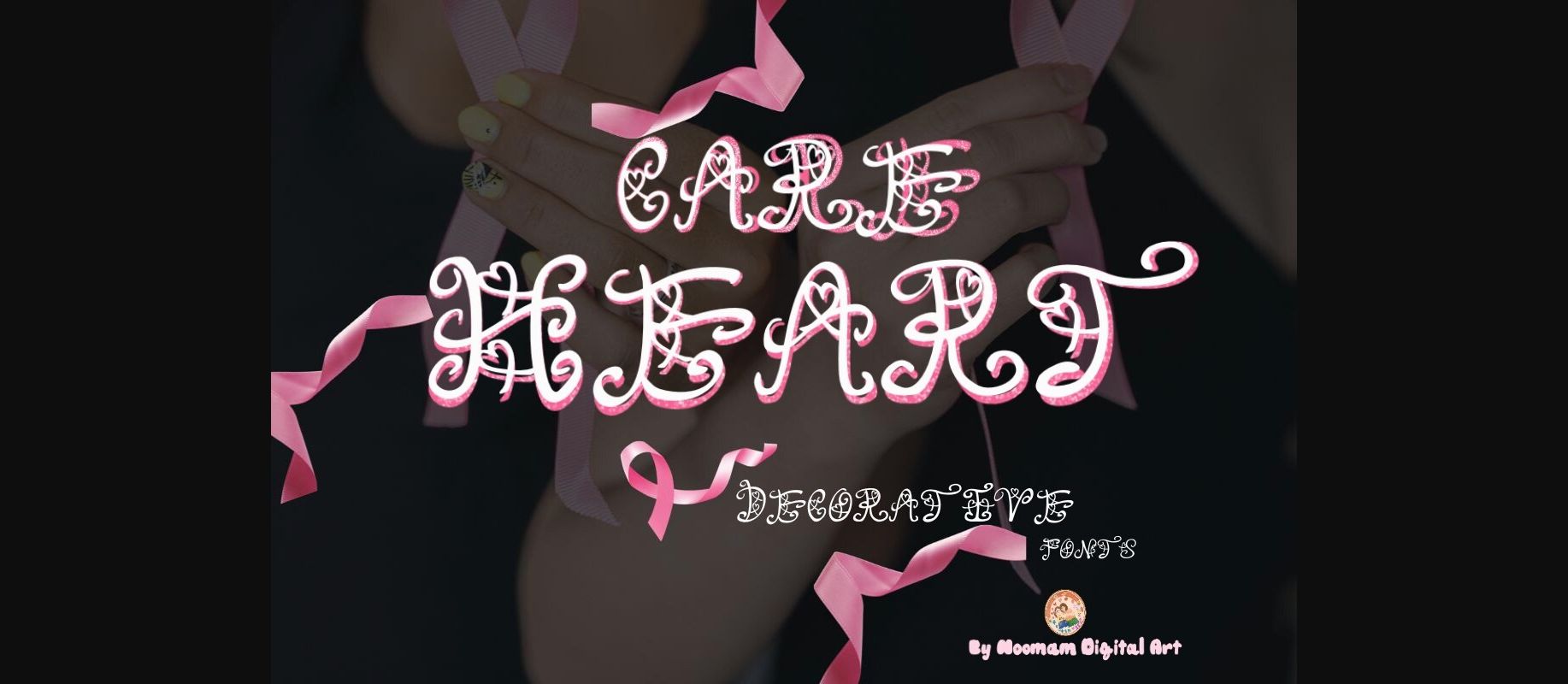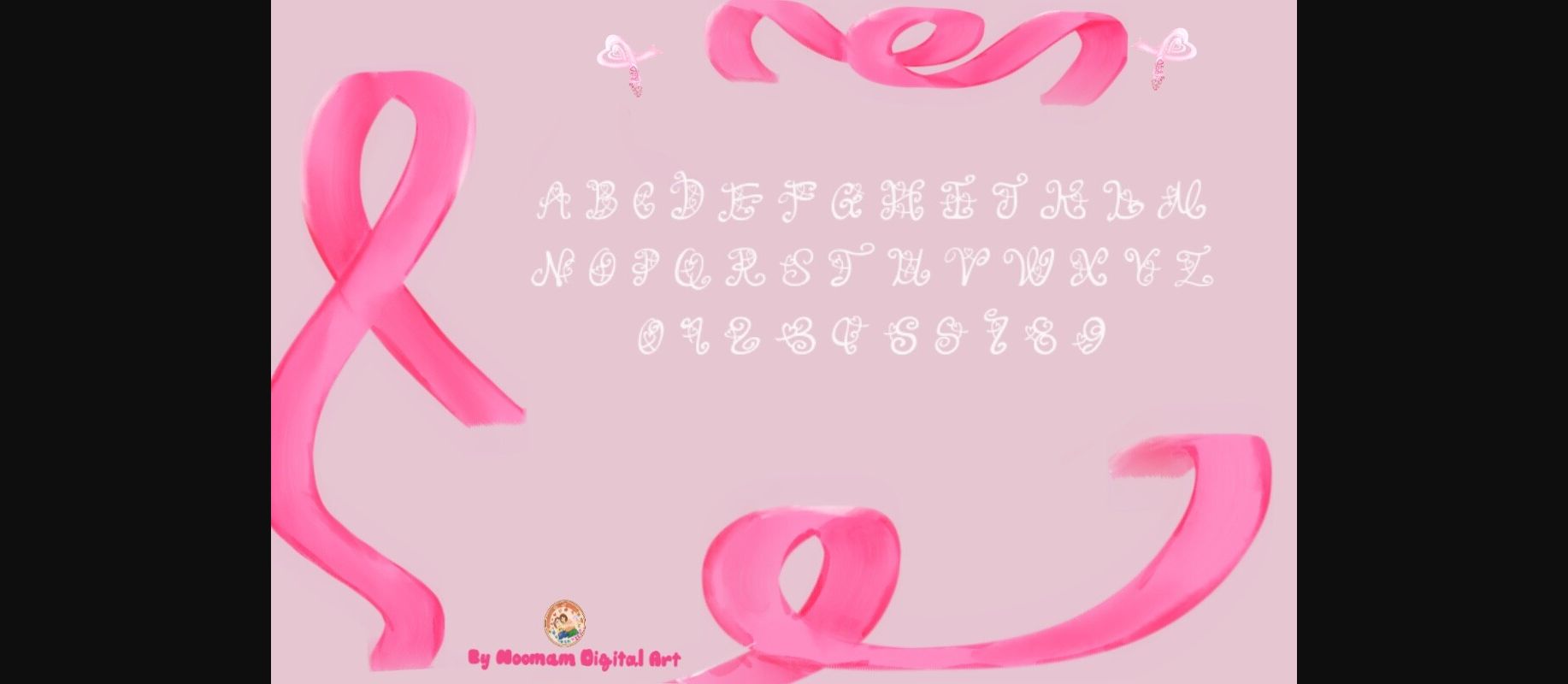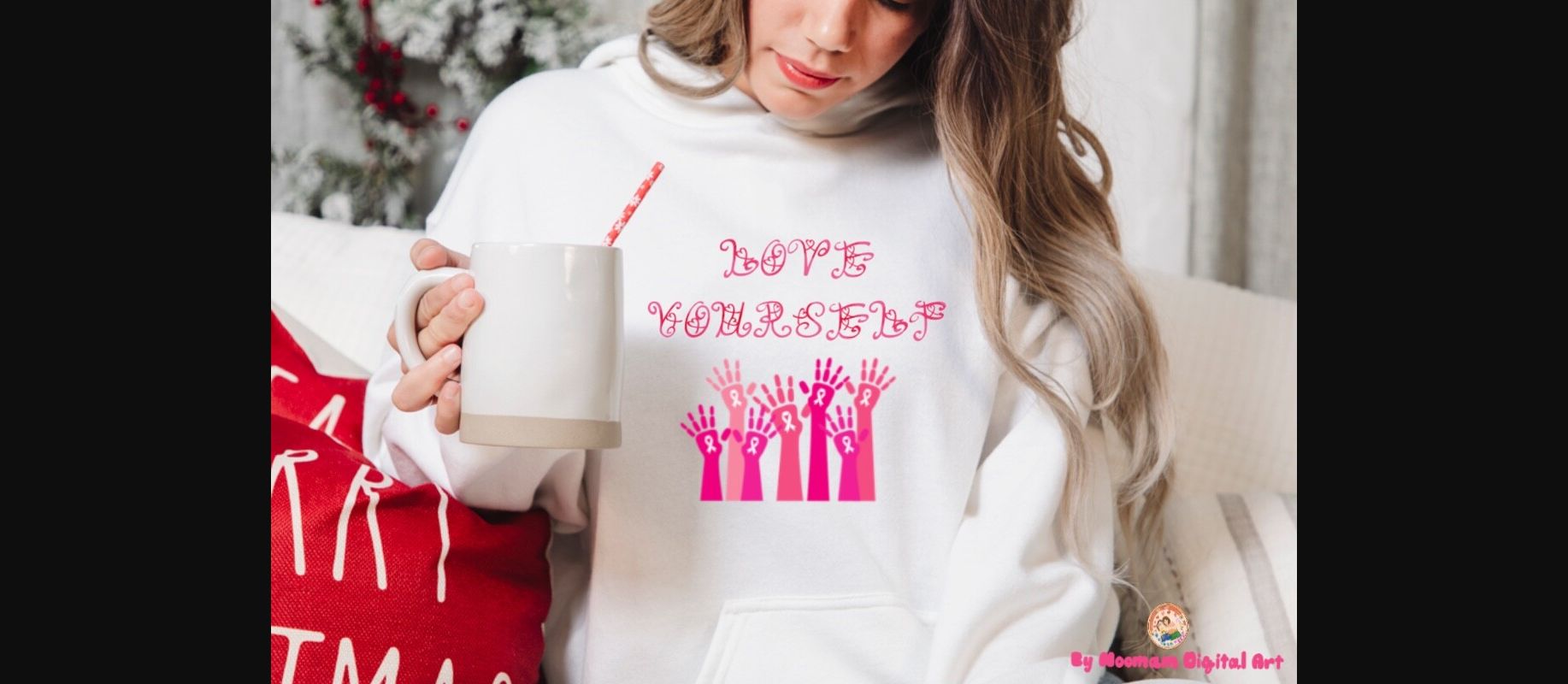
About Care Heart Font
Care Heart is the motivation to fight is strong with a Woman’s spirit. Is suitable for both professional-looking projects such as branding designs, labels, websites, and business cards as well as casual designs like packaging, posters, flyers, quotes, social media posts, invitations, and special occasions cards, etc.